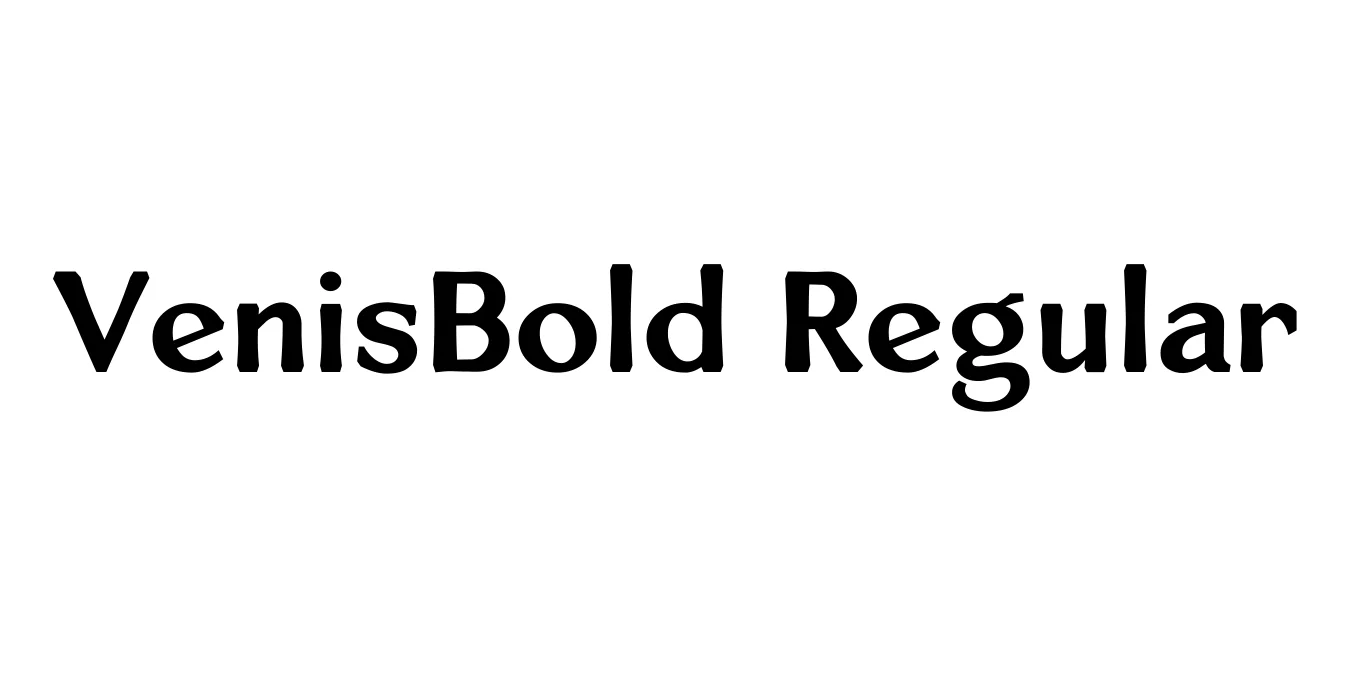
VenisBold Regular
Designed by Aga Silva Graphics
VenisBold Regular is a high-impact display typeface designed to command attention through its robust construction and refined geometric balance. It features thick, authoritative strokes that are meticulously balanced with clean apertures, ensuring that the typeface remains legible even in demanding visual environments. This font is particularly favored by graphic designers who require a heavy-weight solution that does not sacrifice modern elegance for sheer power.
The versatility of VenisBold Regular has made it a staple in contemporary branding and advertising. Its structural integrity allows it to perform exceptionally well in both print and digital mediums, ranging from large-scale billboards to crisp mobile application headers. By blending traditional sans-serif principles with a forward-thinking aesthetic, it provides a timeless yet trendy appeal for high-end creative projects.
VenisBold Regular Best Uses
Perfect for creating catchy and powerful titles in magazines or news layouts.
Excellent for developing strong, memorable brand identities that require a bold presence.
Ideal for high-contrast Instagram graphics and YouTube thumbnails.
Great for product labels that need to stand out on retail shelves.